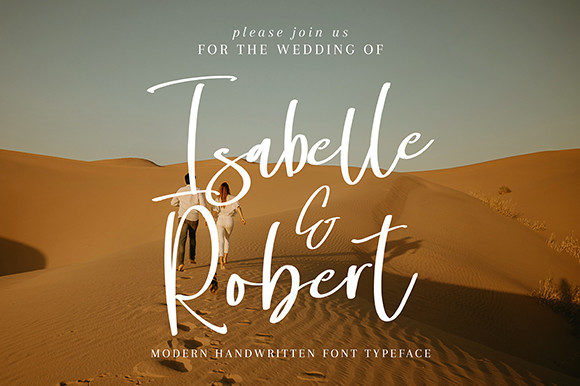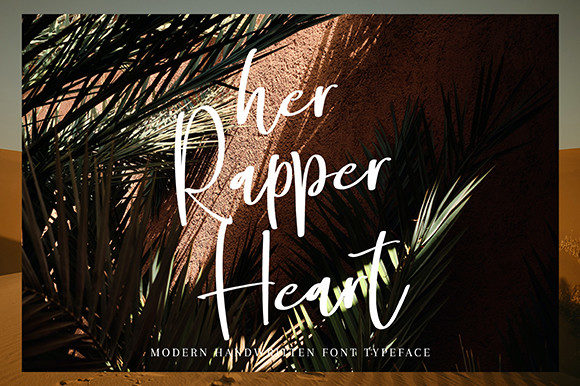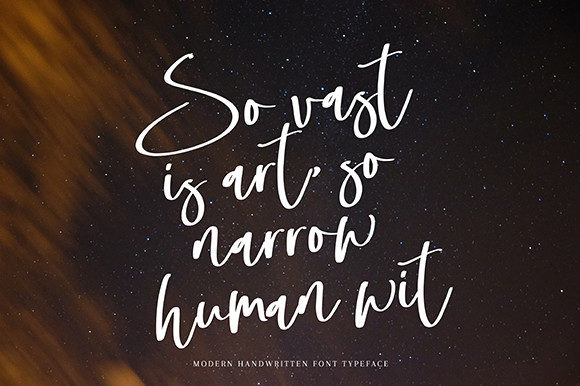
About Amobatte Font
Amobatte is a relaxed and casual script font. This font is PUA encoded which means you can access all of the glyphs and swashes with ease!